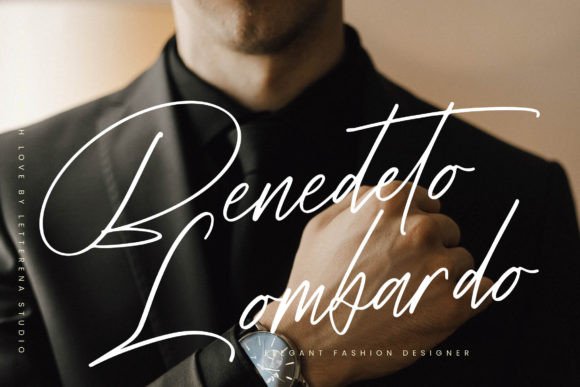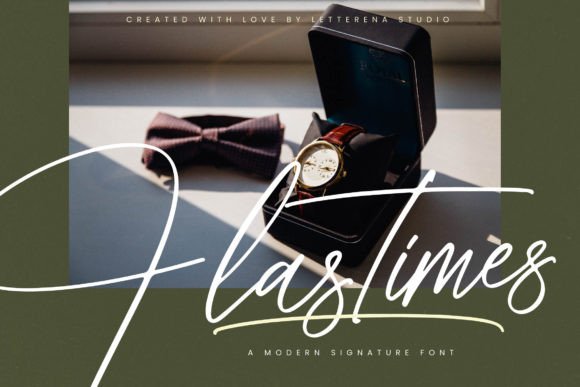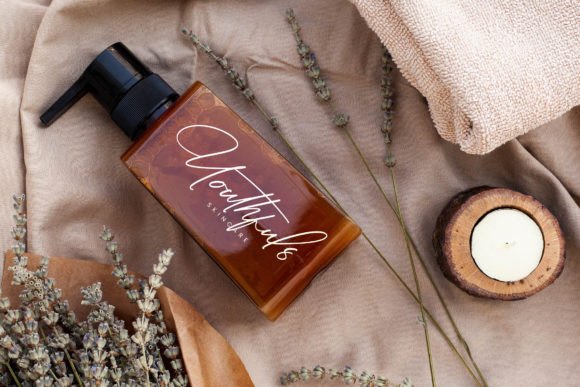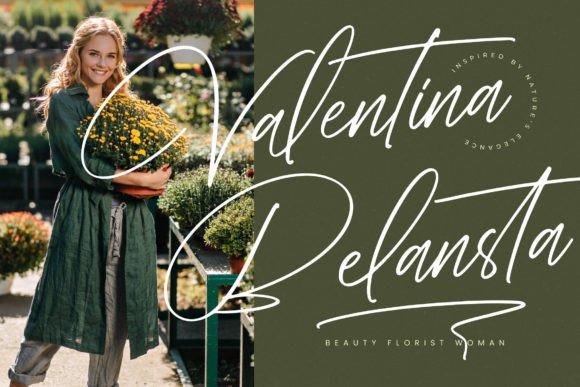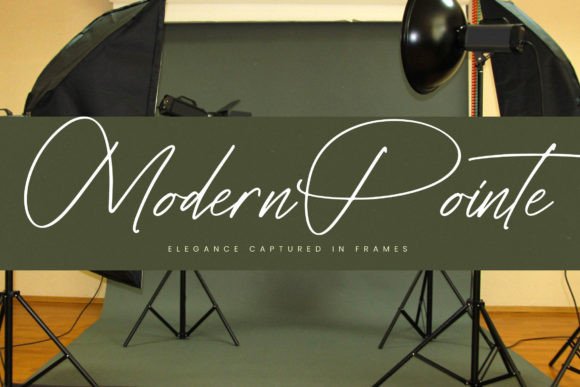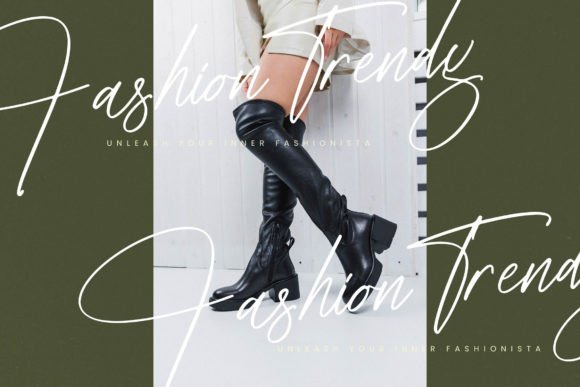
Fantaslife Radiostar Font: Elevate Your Designs with Luxury and Elegance
In the world of design, fonts play a crucial role in conveying the tone and aesthetic of a project. For those seeking to add a touch of luxury and sophistication, the Fantaslife Radiostar Font is an exceptional choice. This modern signature font, crafted by Letterena, is a stunning Luxury Script font designed to elevate a wide range of projects, from logos and branding to packaging, posters, and more.
What is Fantaslife Radiostar Font?
Fantaslife Radiostar Font is a beautifully designed script font that exudes elegance and refinement. Its modern signature style makes it perfect for designers and crafters looking to add a luxurious touch to their work. With its flowing lines and sophisticated aesthetic, this font is sure to make a statement in any project.
Key Features of Fantaslife Radiostar Font
- Luxury Script Style: Fantaslife Radiostar boasts a luxurious script style that adds a touch of elegance to any design.
- Modern Signature Font: Its modern signature style makes it perfect for a wide range of applications, from logos to invitations.
- High Versatility: This font is suitable for various projects, including logos, branding, homeware designs, product packaging, and more.
- Elegant and Refined: Fantaslife Radiostar’s elegant and refined aesthetic makes it ideal for designers and crafters seeking to create sophisticated designs.
Usage Ideas for Fantaslife Radiostar Font
The Fantaslife Radiostar Font is incredibly versatile and can be used in a multitude of projects, including:
- Logos and Branding Projects: Create a lasting impression with a luxurious logo that showcases your brand’s elegance and sophistication.
- Homeware Designs: Add a touch of luxury to your homeware designs, such as cushions, tote bags, and mugs.
- Product Packaging: Elevate your product packaging with a sophisticated font that reflects your brand’s high-end aesthetic.
- Mugs and Quotes: Create stunning mugs and quotes that showcase your favorite phrases or lyrics.
- Posters and Shopping Bags: Design eye-catching posters and shopping bags that make a statement.
- T-Shirts and Book Covers: Add a touch of luxury to your apparel and book designs.
- Invitation Cards and Greeting Cards: Create beautiful and elegant invitation and greeting cards for special occasions.
- Labels and Photography: Use Fantaslife Radiostar as a watermark or for label design to add a professional touch to your photography.
Why Choose Fantaslife Radiostar Font?
When it comes to selecting a font for your design project, there are several reasons why Fantaslife Radiostar stands out:
- Unique and Exclusive: This font offers a unique and exclusive style that will set your designs apart from the rest.
- Elegant and Sophisticated: Fantaslife Radiostar’s elegant and sophisticated aesthetic makes it perfect for luxury brands and high-end designs.
- Easy to Read: Despite its luxurious and script style, Fantaslife Radiostar remains easy to read, making it functional as well as beautiful.
- High-Quality Design: Crafted with attention to detail, this font is of exceptionally high quality, ensuring it will enhance any project.
In conclusion, the Fantaslife Radiostar Font is a stunning Luxury Script font that can elevate a wide range of design projects. Its modern signature style, elegance, and versatility make it an excellent choice for designers and crafters looking to add a touch of luxury to their work. Whether you’re creating logos, branding materials, packaging, or any other design project, Fantaslife Radiostar is sure to make a lasting impression.